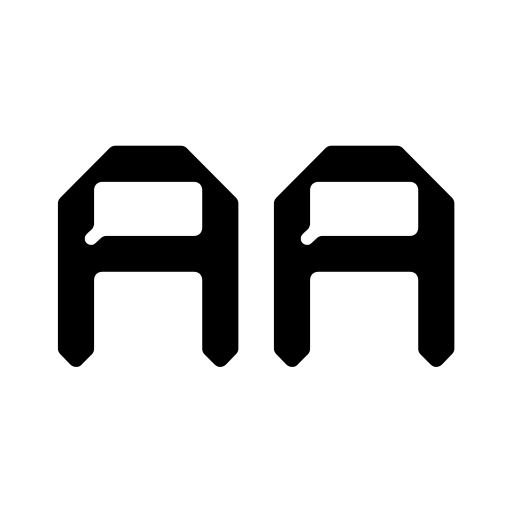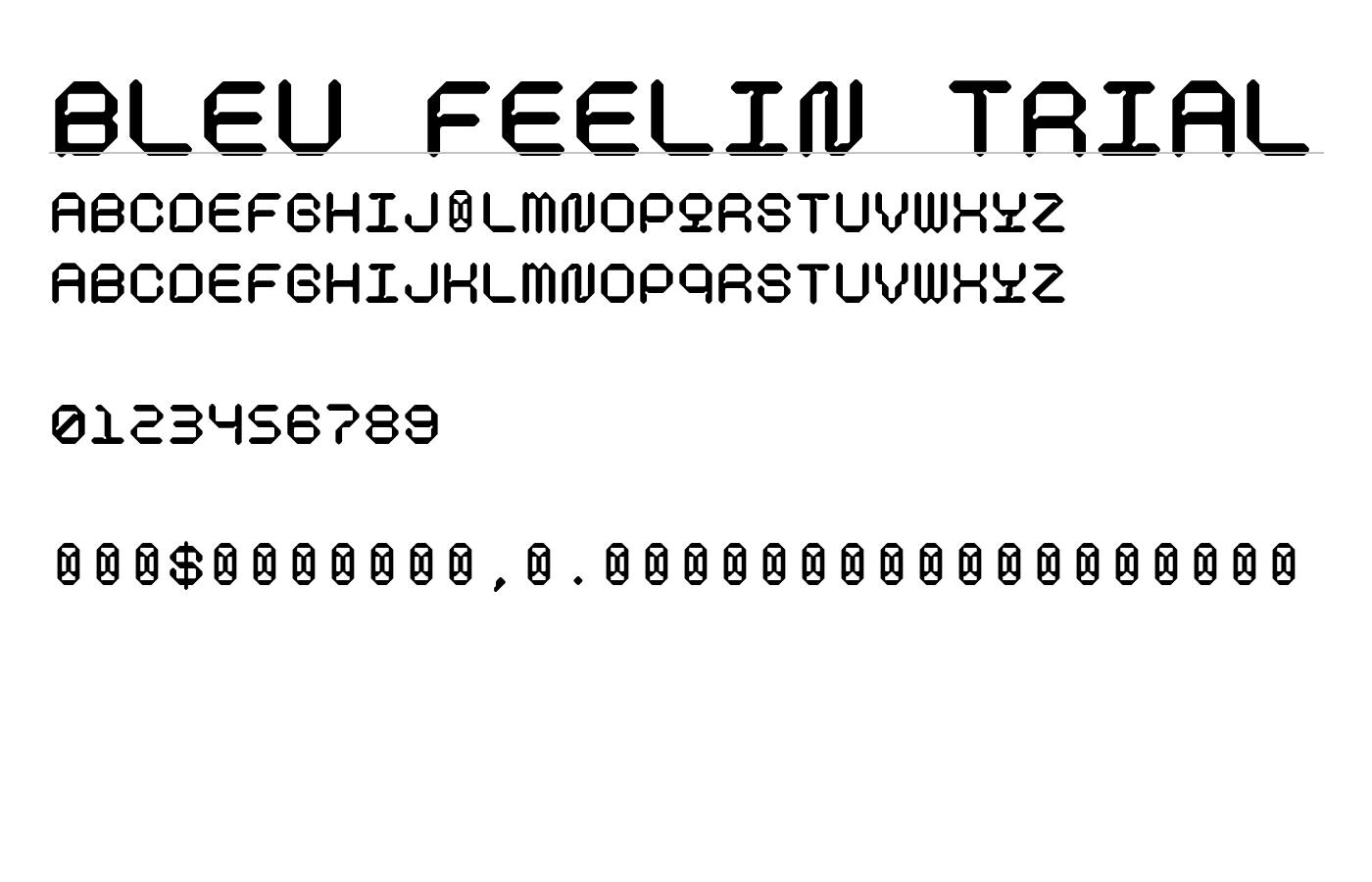
Bleu Feelin Trial is a modern, geometric sans serif font with a square, technical feel and medium weight. Its uniform stroke widths and distinctive angular letterforms give it a futuristic and slightly digital personality, making it ideal for tech branding, posters, and headlines that need a strong, contemporary edge. This font works well for projects looking to convey precision, innovation, and a clean, modern aesthetic.
Bleu Feelin Trial Font
About Bleu Feelin Trial Font